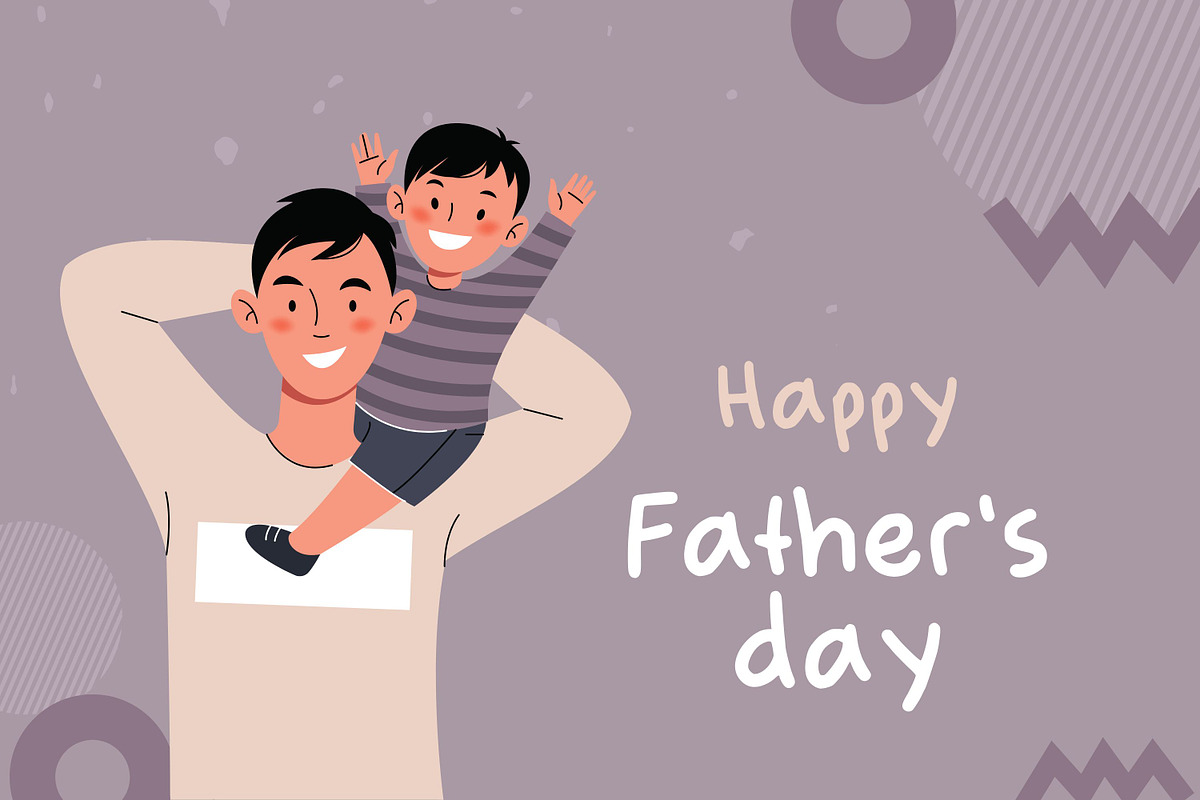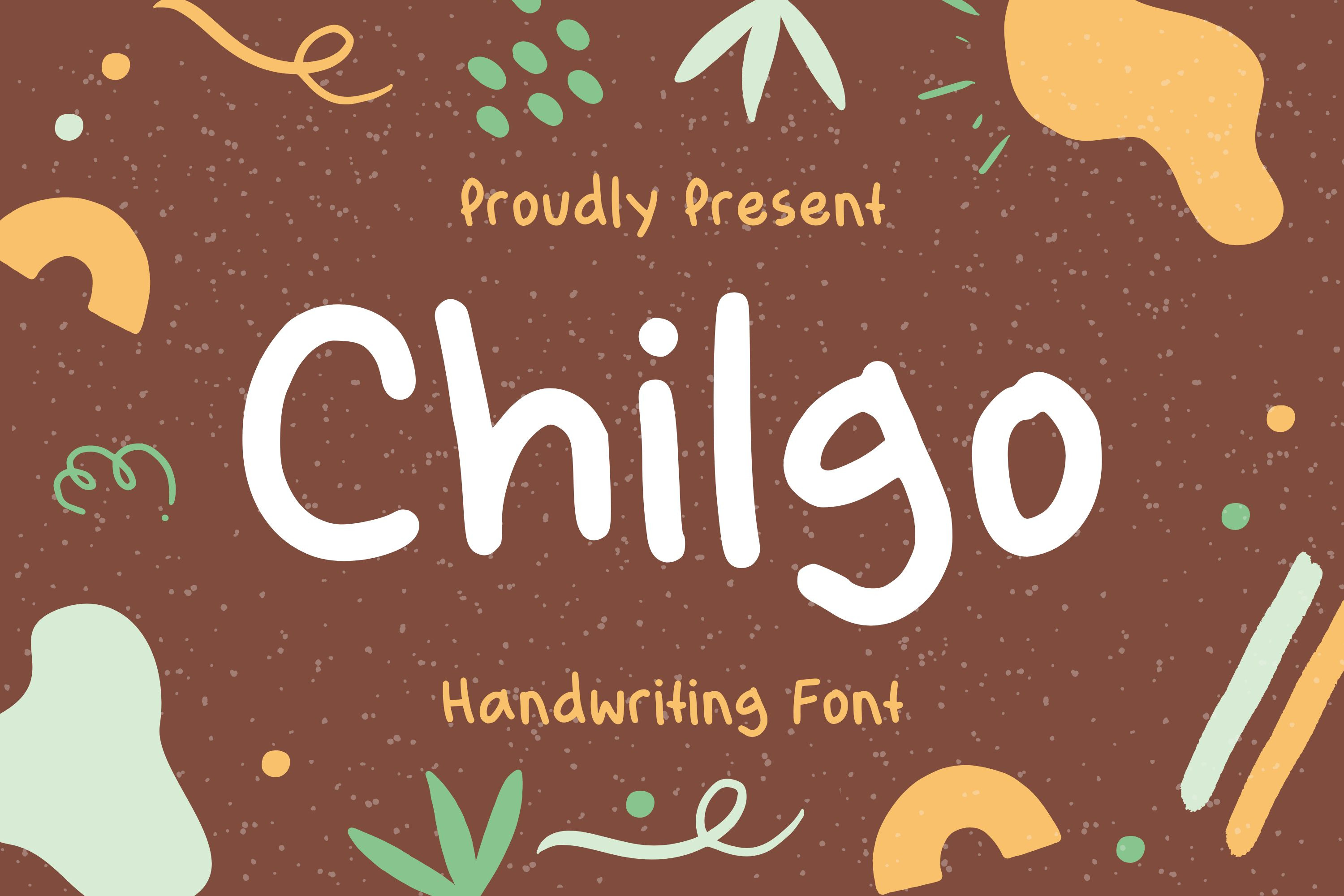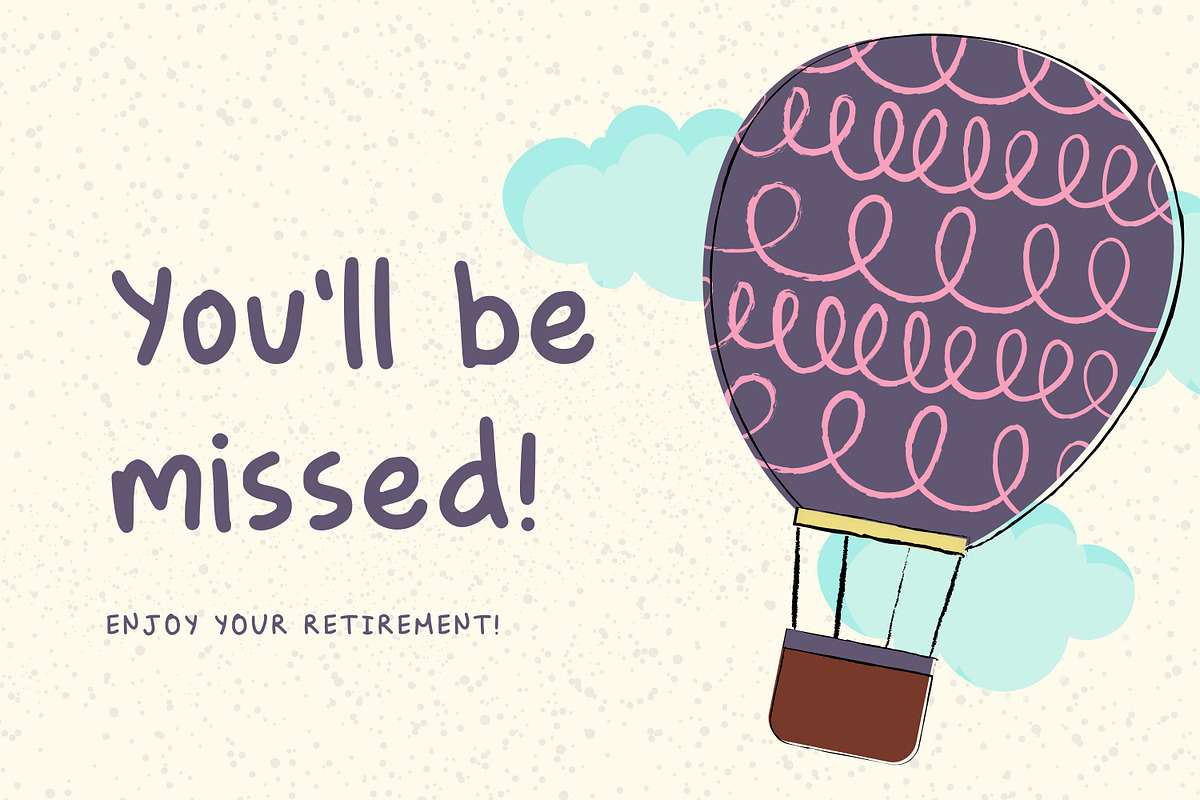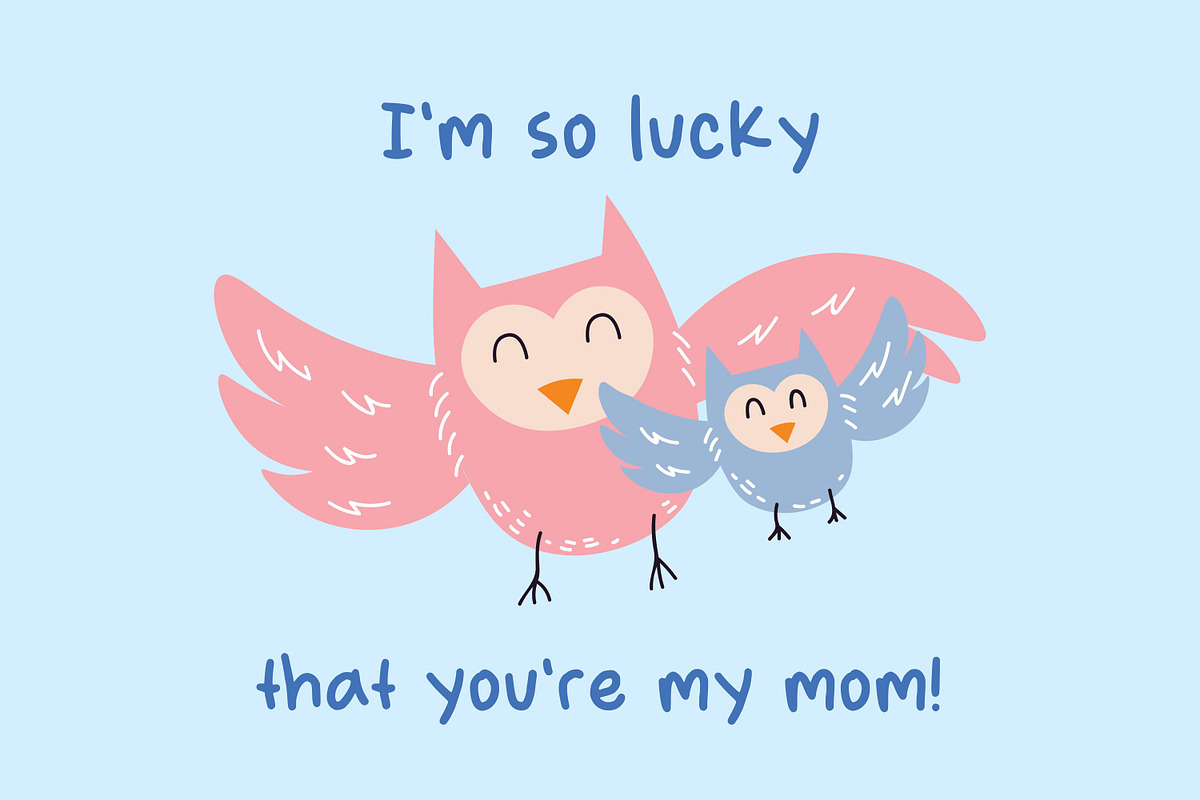
Chilgo kids Handwriting Font
Chilgo handwriting font is a type of font that is designed to mimic the handwritten style of children. This font is often used for educational materials, children's books, and other projects that require a playful and youthful look. The letters are easy to read and have a fun, whimsical feel that can make learning more enjoyable for young readers.
Chilgo handwriting font can also be used in scrapbooking, invitations, greeting cards, and other creative projects that require a kid touch. It adds a unique, handwritten element to your design that can make it stand out and feel more authentic.